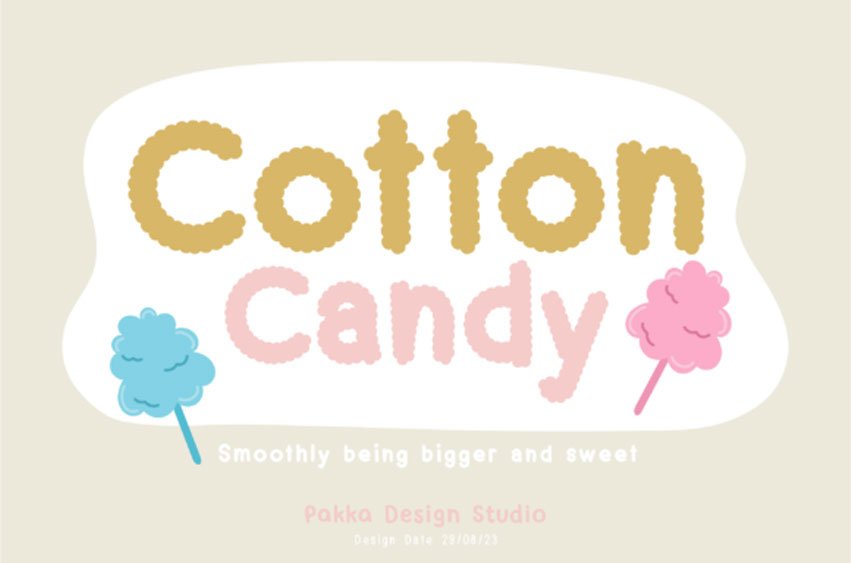
Cotton Candy Font display font swirls with sugary delight, like letters spun from a candy cloud. Each character is as sweet as a carnival treat, evoking the joy of colorful fun and tasty surprises. The font captures the essence of playful whimsy, reminiscent of carousel rides and laughter-filled days.
With its cotton candy-inspired appearance, this font adds a touch of sugary charm to your design. It conveys the spirit of carefree enjoyment and sugary magic, making it a perfect choice for projects related to kids, celebrations, or anything that brings the delightful sweetness of childhood to life.